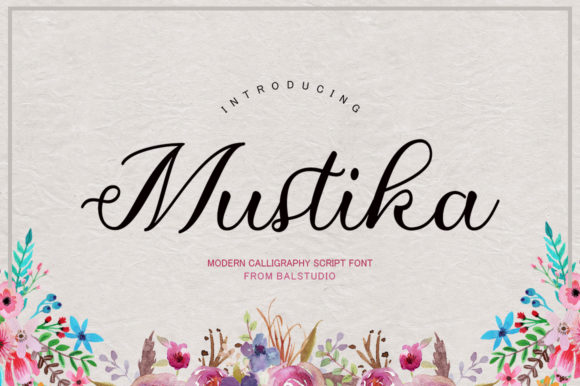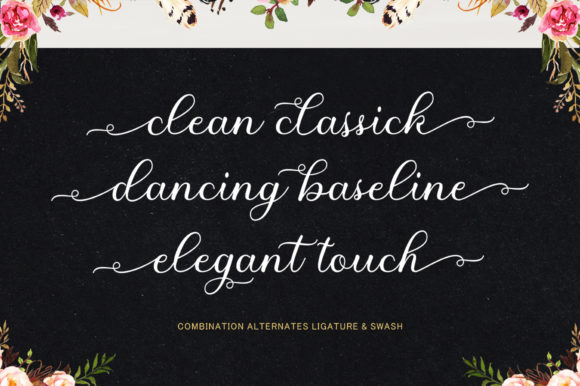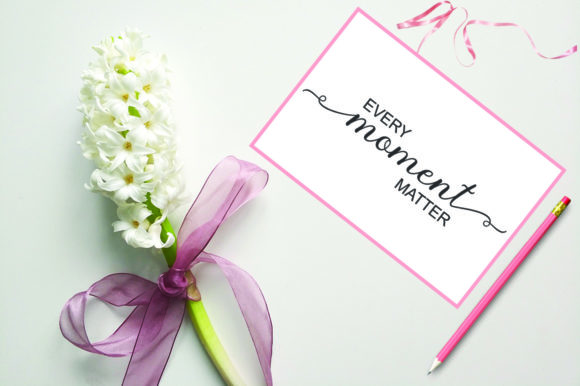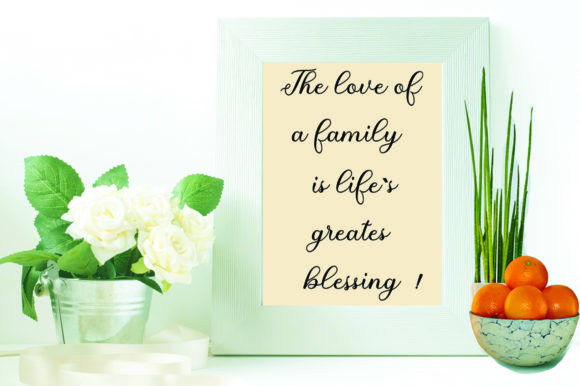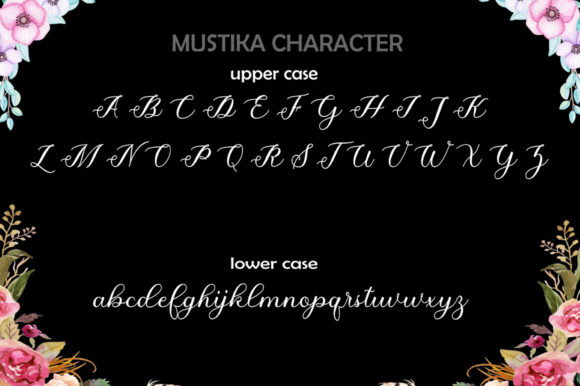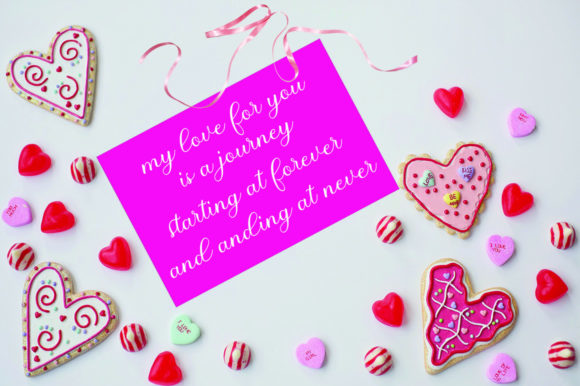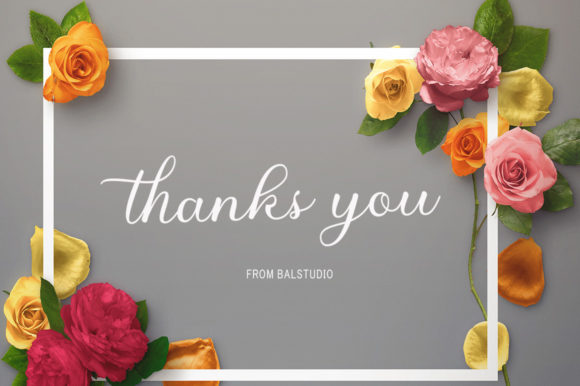
Mustika Font
About Mustika Font
Mustika is a sweet and cool script font featuring elegant swashes. It will easily take any design project to the next level.